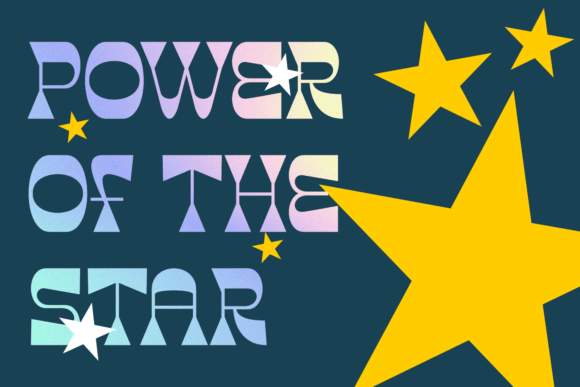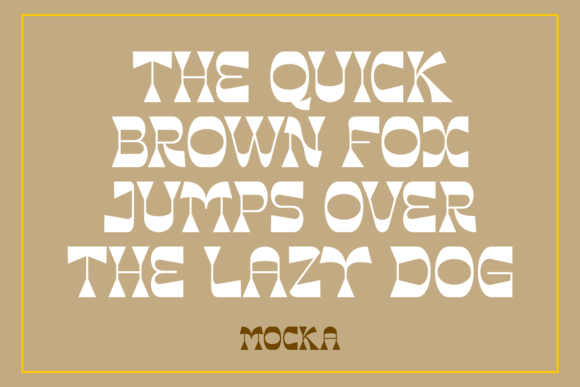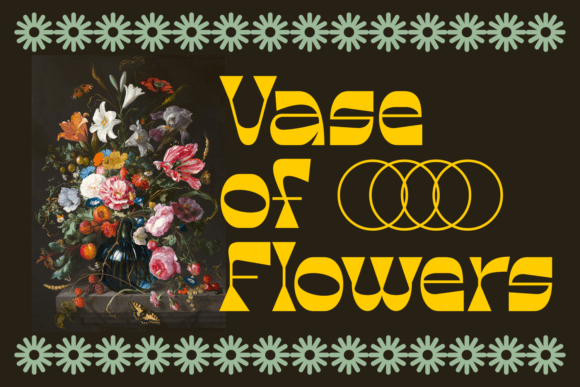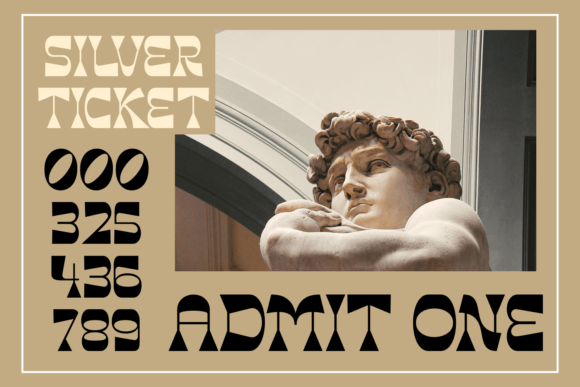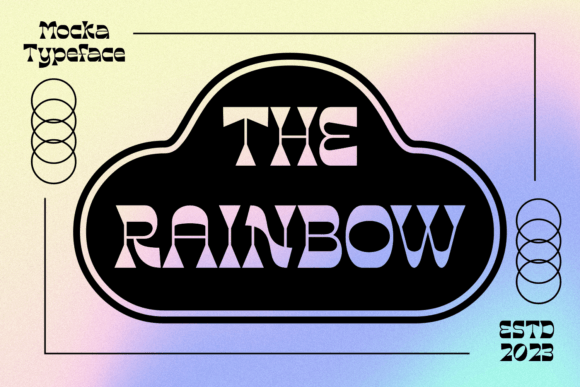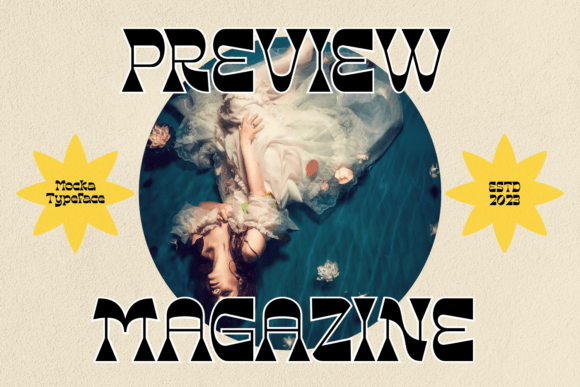
Introduction to Mocka Font Font
Fonts play a crucial role in design, and the Mocka Font font is a typeface that brings both character and versatility to any project. Whether you’re working on a branding project, a website, or a print design, the Mocka Font font offers a unique style that can elevate your work.
Mocka is a playful, vintage slab serif font that is perfect for any project that needs a bit of personality and attitude.
Its stylish and distinctive letters offer a modern yet retro look, with their slightly rounded edges and quirky details adding a touch of fun Whether youβre looking for something edgy or lighthearted, this font is sure to bring your text to life.
Key Features of Mocka Font Font
Why Choose Mocka Font Font?
The Mocka Font font is more than just a typeface β it’s a design tool that helps you communicate your message with style and clarity. Its unique character set and versatile design make it suitable for a wide range of applications, from elegant invitations to bold headlines.
With its carefully crafted letterforms and balanced proportions, the Mocka Font font ensures readability and visual appeal across all mediums.
What makes Mocka Font font special?
The Mocka Font font stands out with its unique design, exceptional readability, and versatility across various design applications.